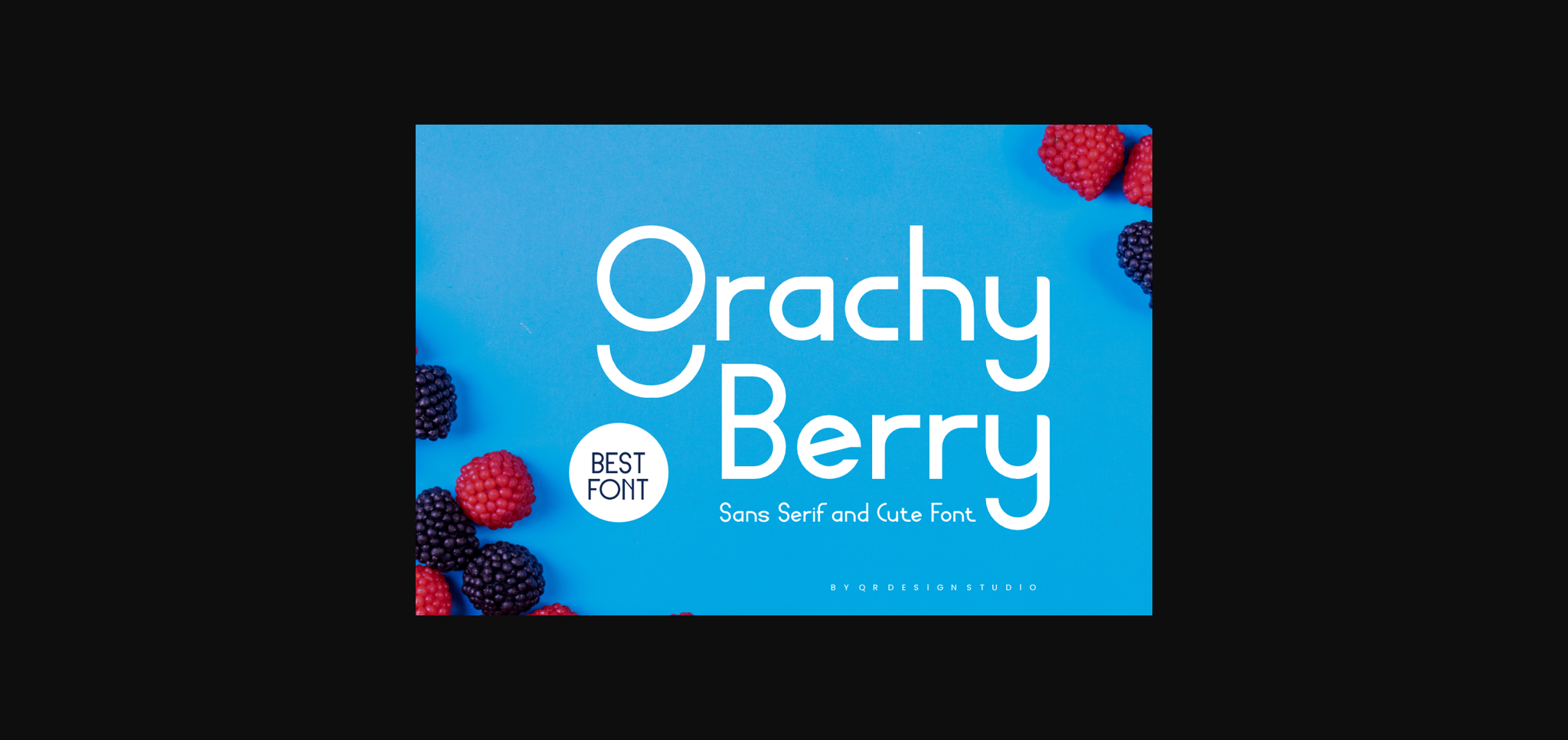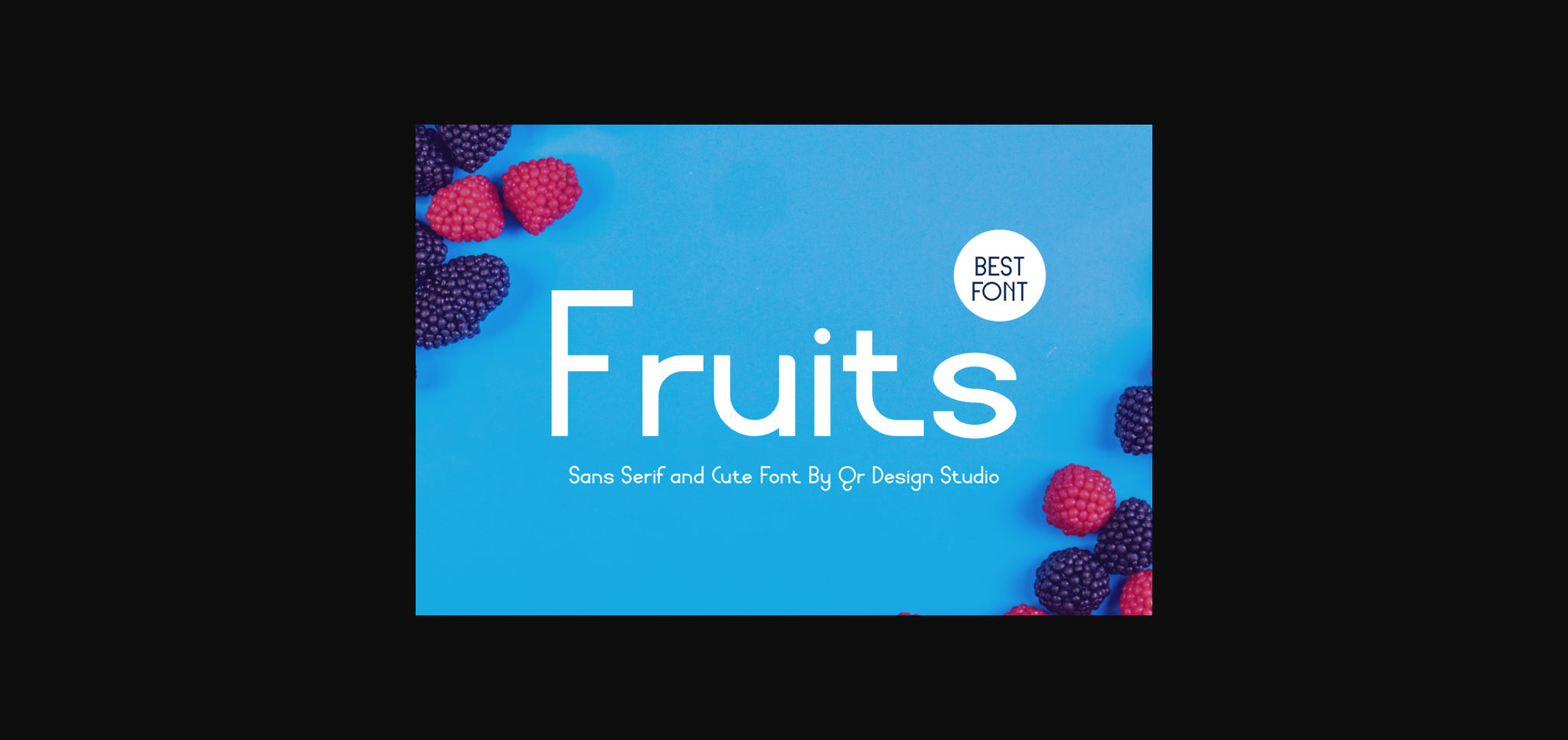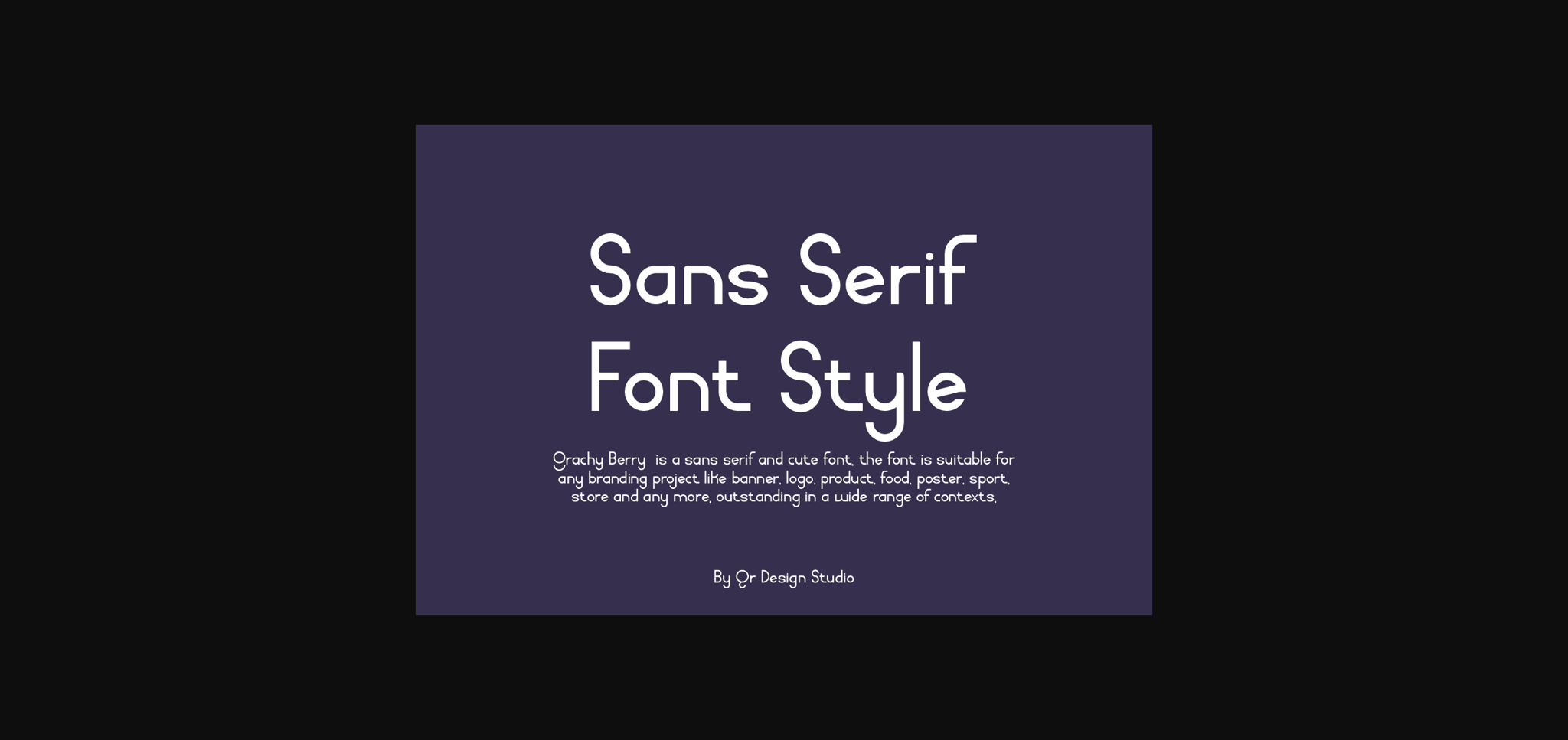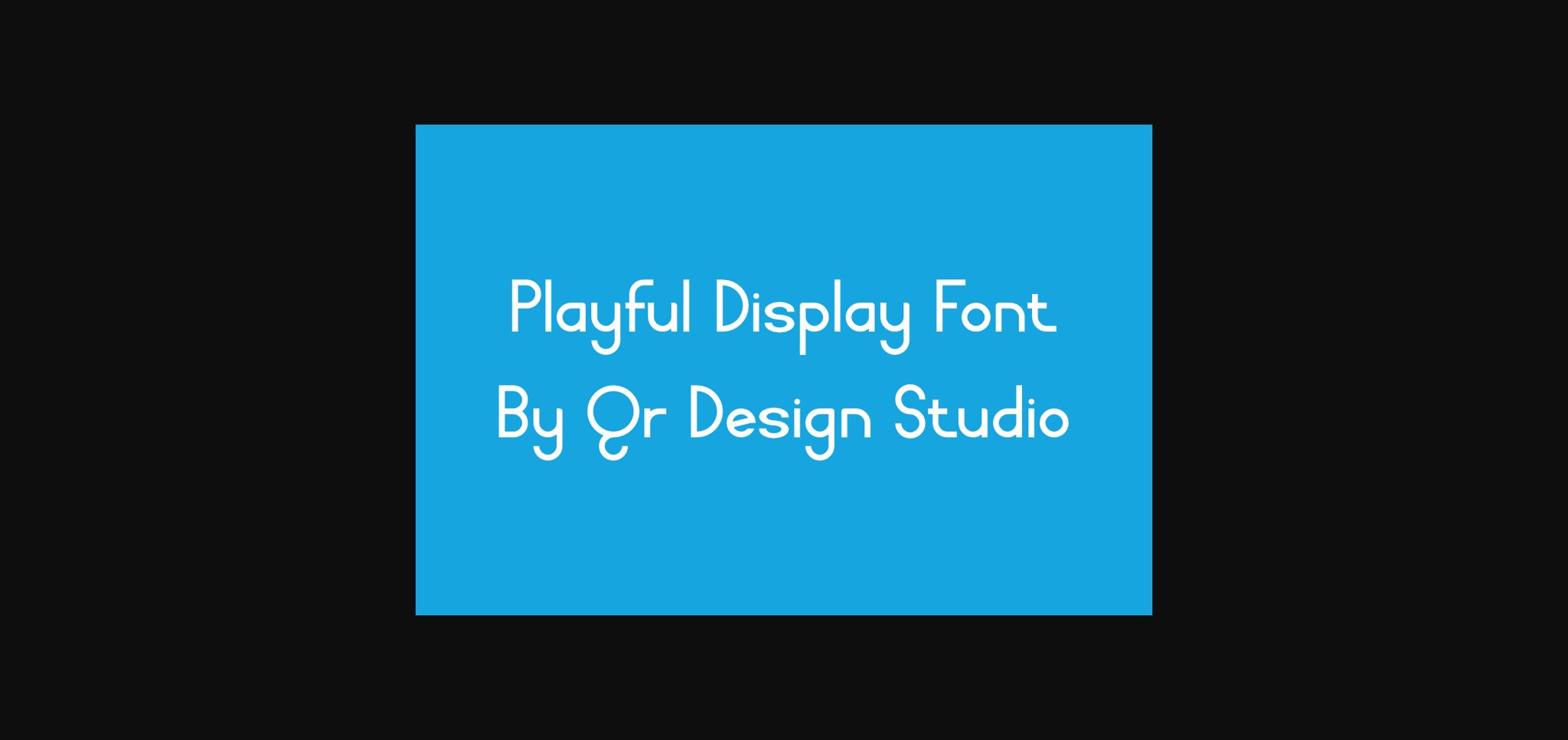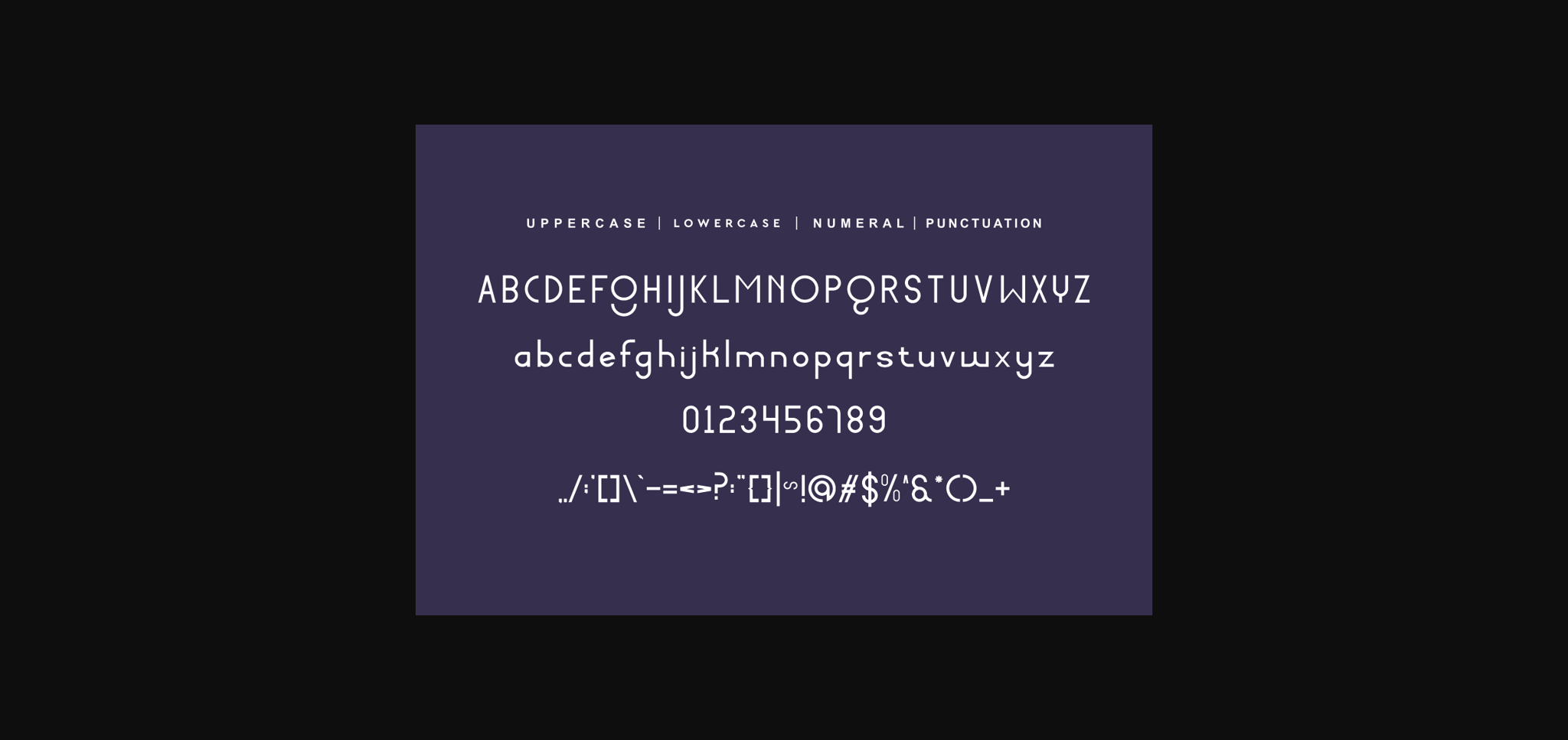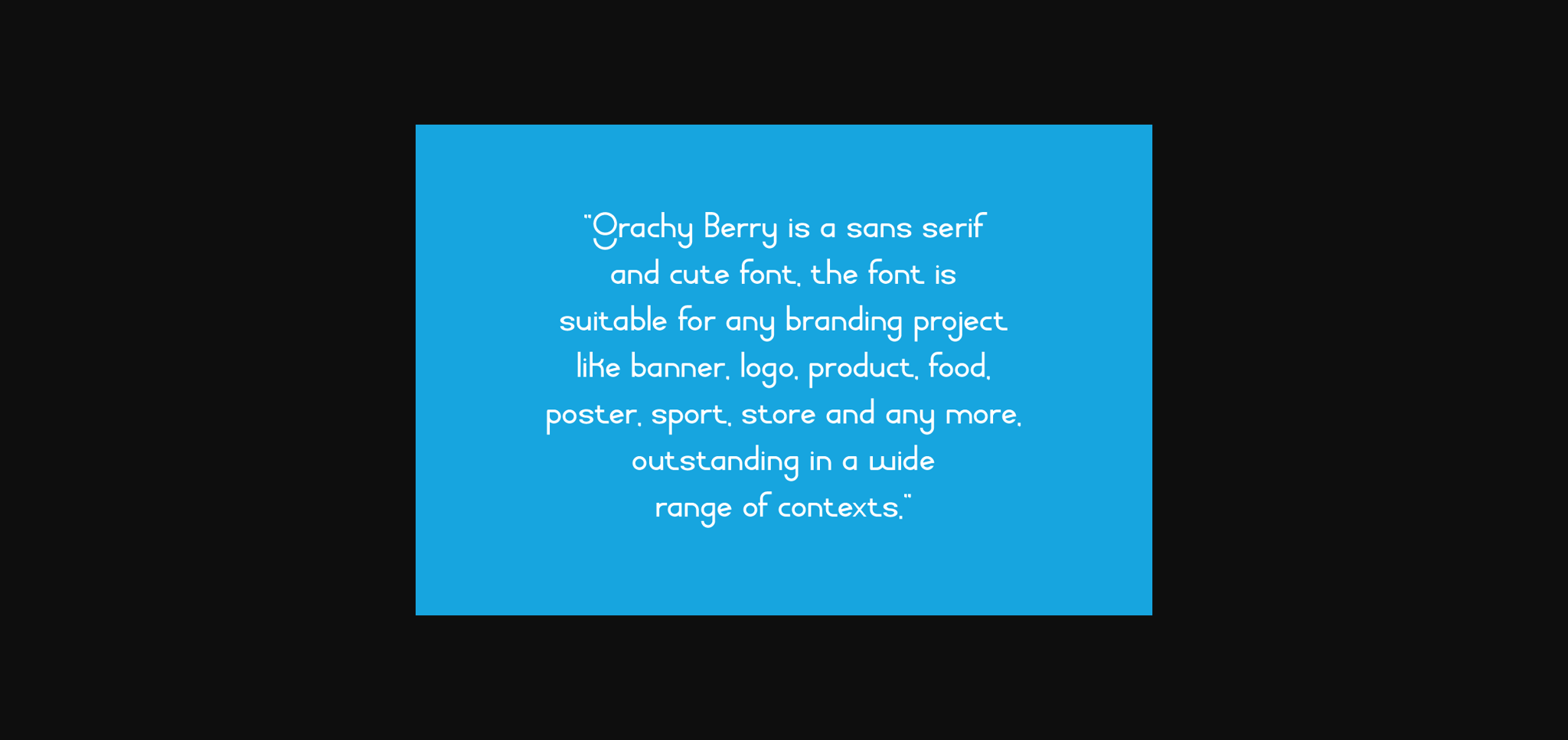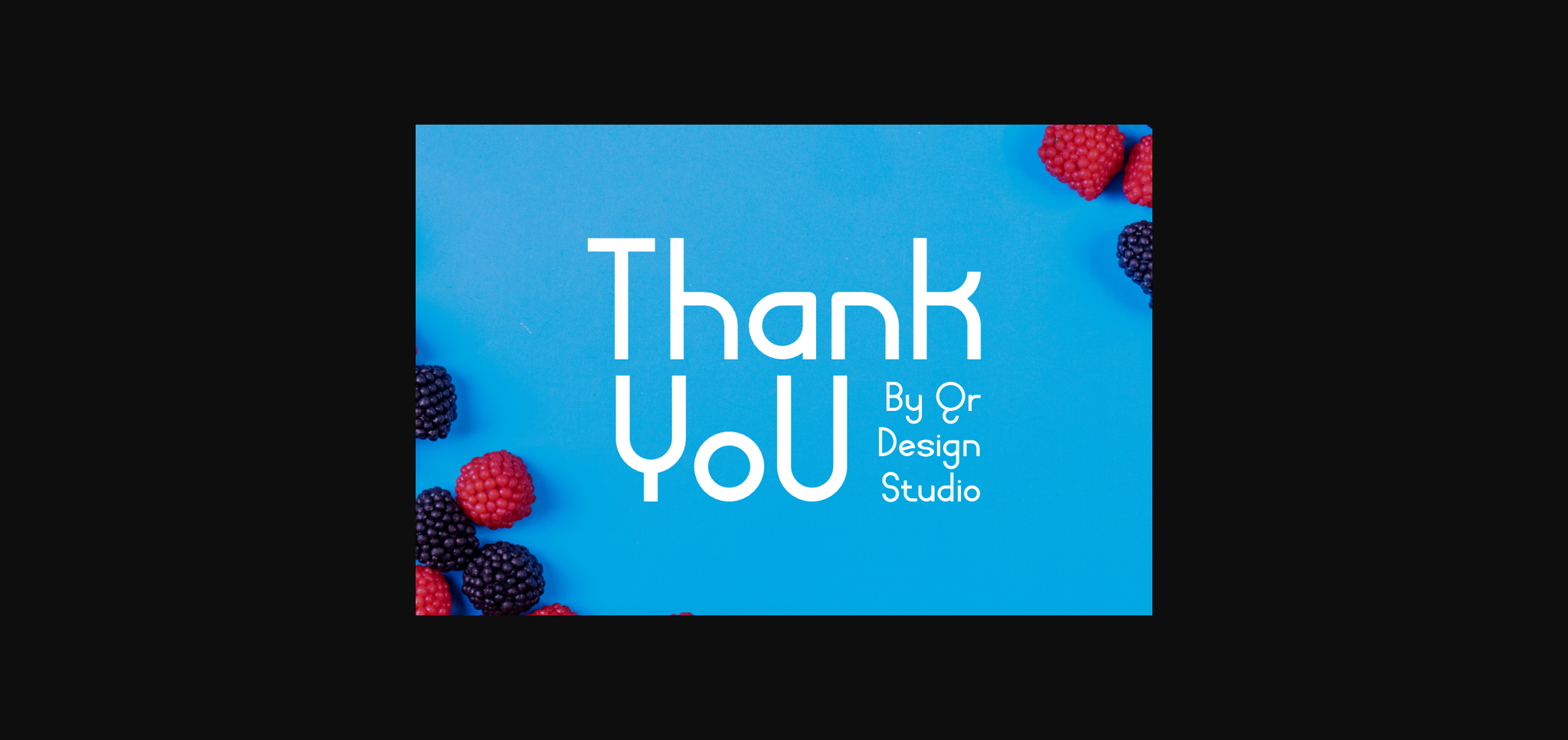
HomeSans Serif FontsGrachy Berry Font Sans Serif Fonts Grachy Berry Font FacebookXPinterestWhatsApp 1 of 9 ... Grachy Berry Font Poster 2... Grachy Berry Font Poster 3... Grachy Berry Font Poster 4... Grachy Berry Font Poster 5... Grachy Berry Font Poster 6... Grachy Berry Font Poster 7... Grachy Berry Font Poster 8... Grachy Berry Font Poster 9... About Grachy Berry Font is a sans serif and authentic display font. The font is suitable for any branding project like logo, sport, and many more. DOWNLOAD NOW People also explored Whinda Bright Font Picablo Fentier Font Jakarta Backers Font Hey Lady Script Font Red Triblend Bella Canvas 8413 Flat Lay Avoraty Font Handuk Font Cornelia Font Bonobo 323 0 TagsGrachy Berry Font Previous articleMorgan Aterny FontNext articleHome Font LEAVE A REPLY Cancel reply Comment: Please enter your comment! Name:* Please enter your name here Email:* You have entered an incorrect email address! Please enter your email address here Website: Save my name, email, and website in this browser for the next time I comment. Personal Use Free Bosque Font Personal Use Free Read more about this font Puisi Adinda Personal Use Free Read more about this font Arabella Script Personal Use Free Read more about this font Penelope Brush Script Font Personal Use Free Read more about this font BLOG Top 7 Google Fonts Alternatives for Faster and Privacy-Friendly Web Design (2025) Top 7 Google Fonts Alternatives for Faster and Privacy-Friendly Web Design (2025) When it comes to web typography, Google Fonts has long been the go-to... Top 10 Handwritten Fonts That Elevate Your Designs Best Fonts for T-Shirt Design – Top 2025 Picks Modern Sans-Serif Fonts That Brands Love in 2025